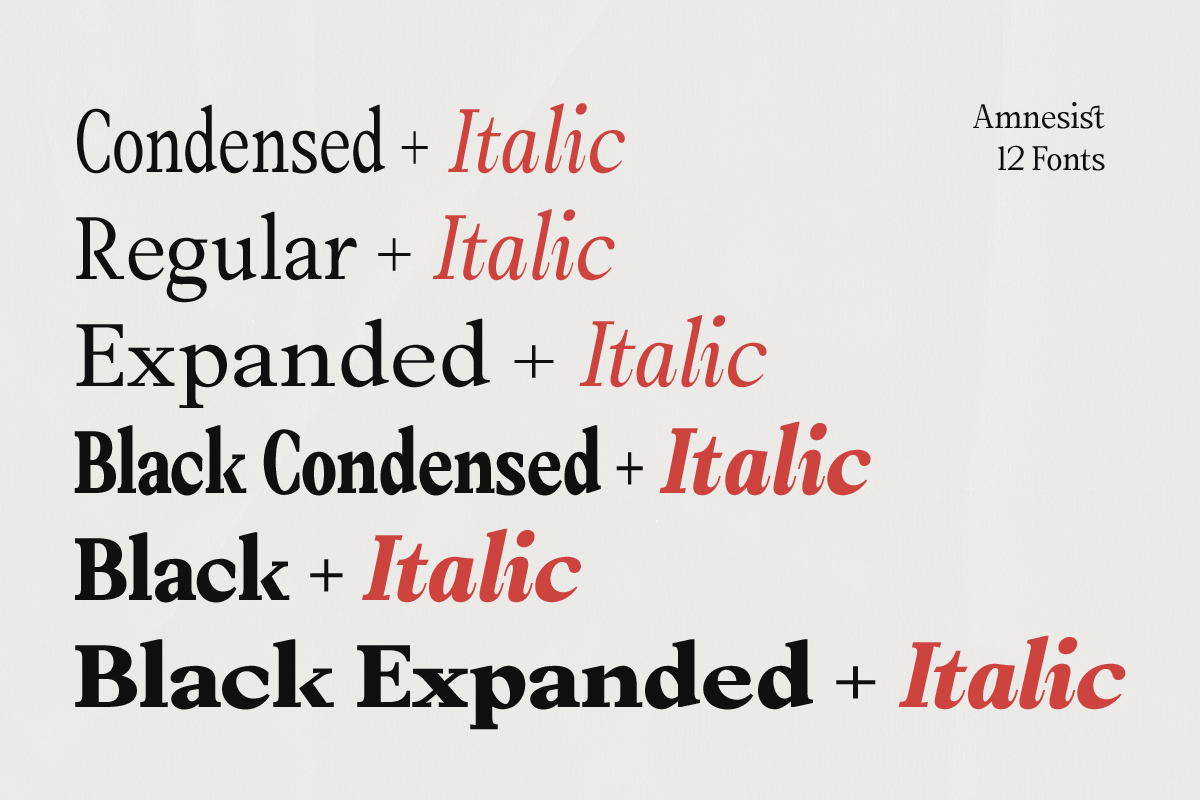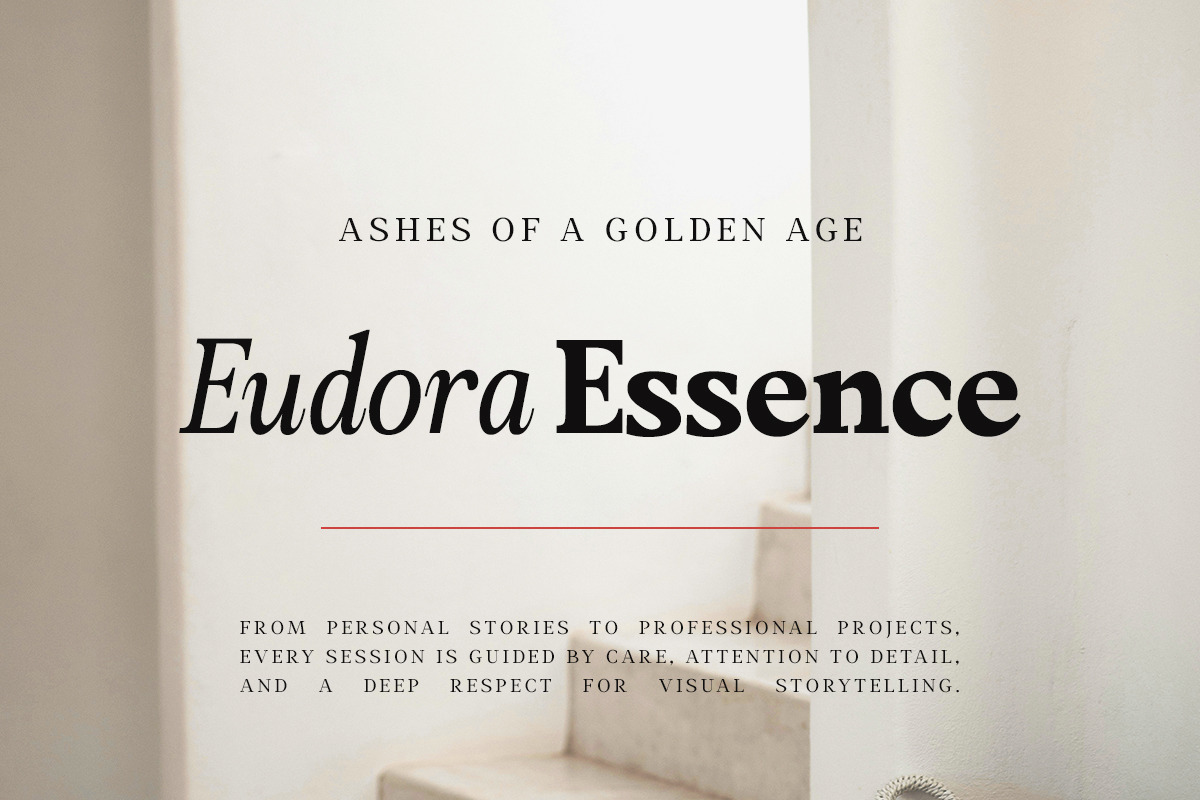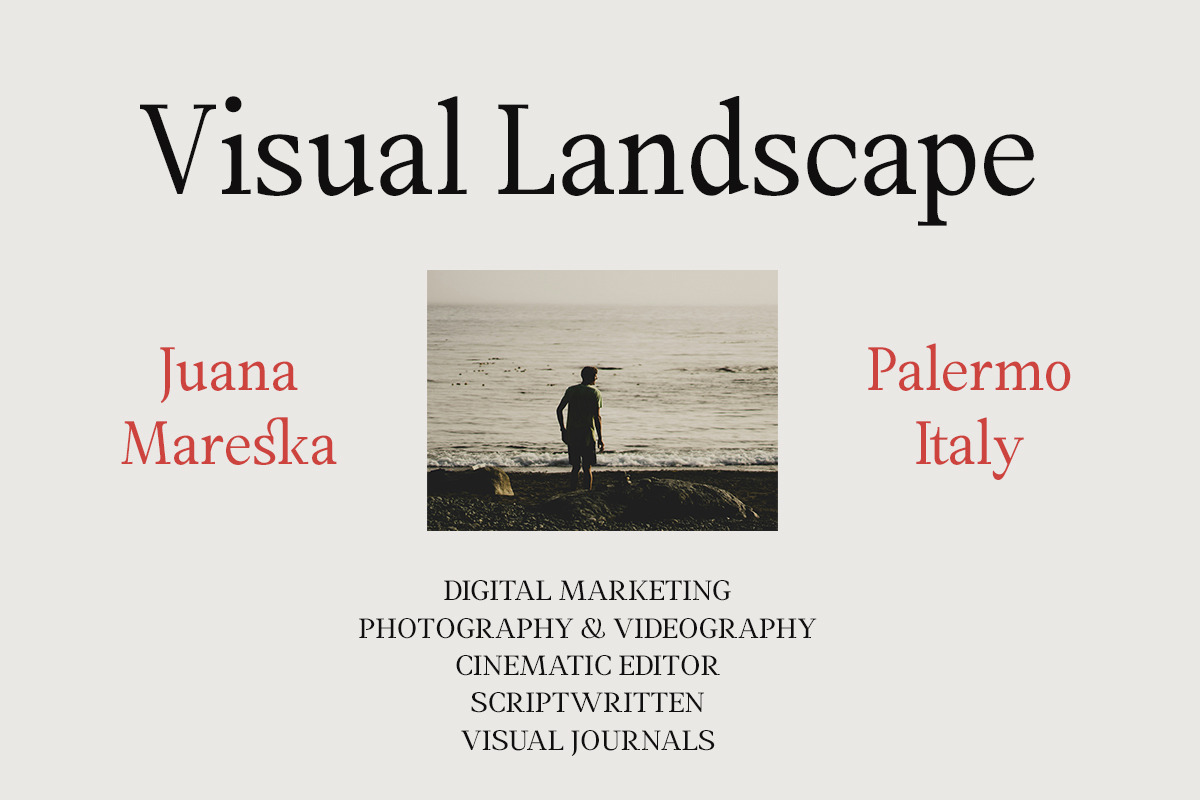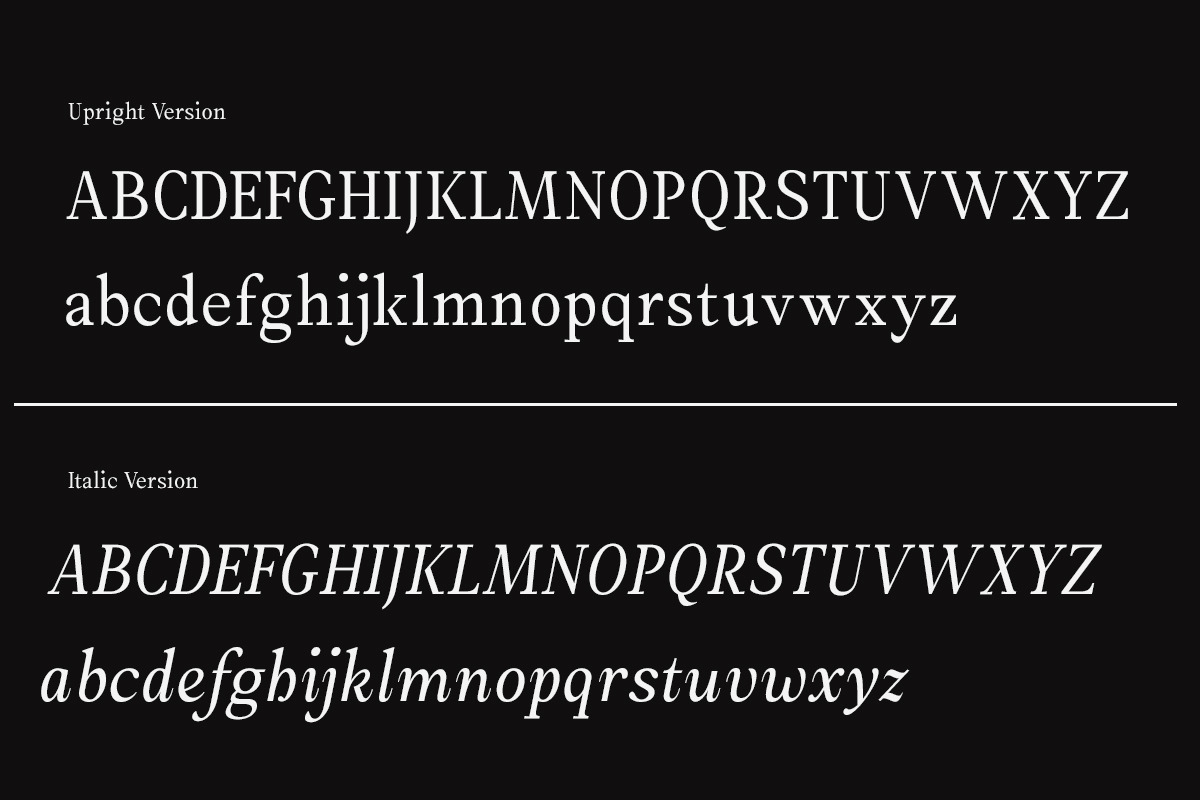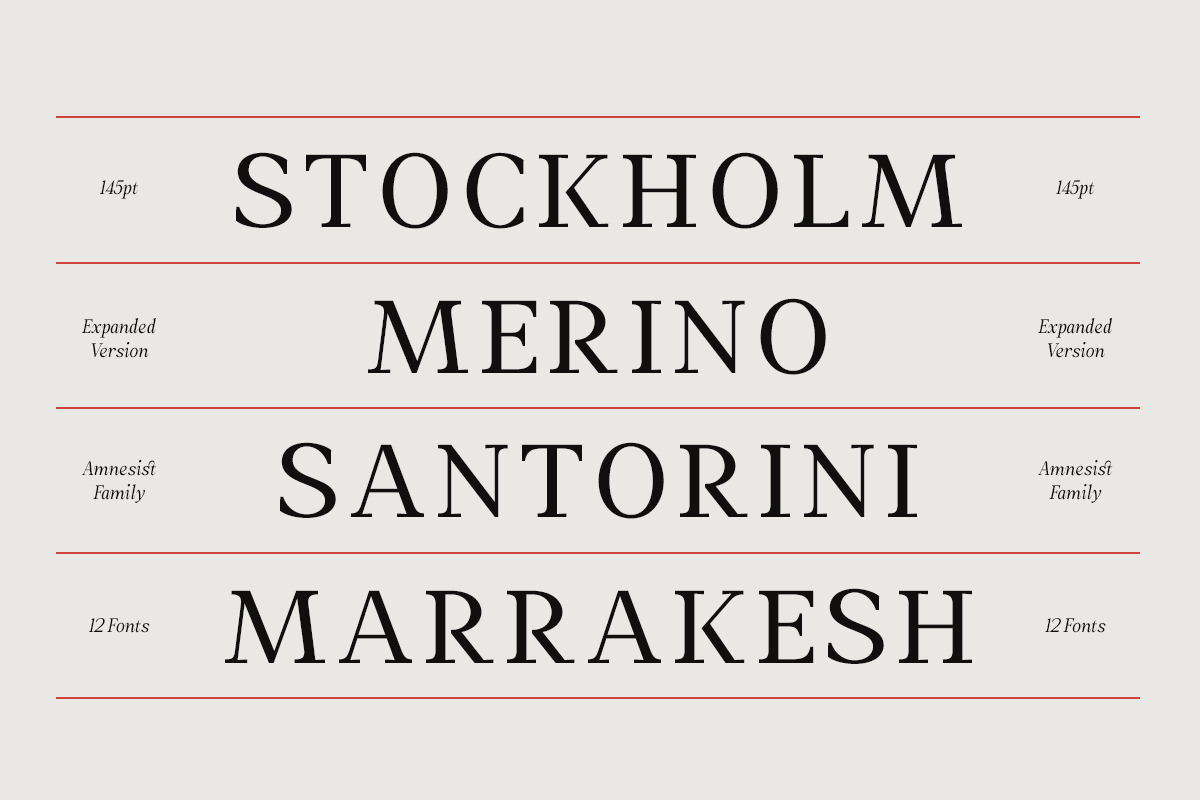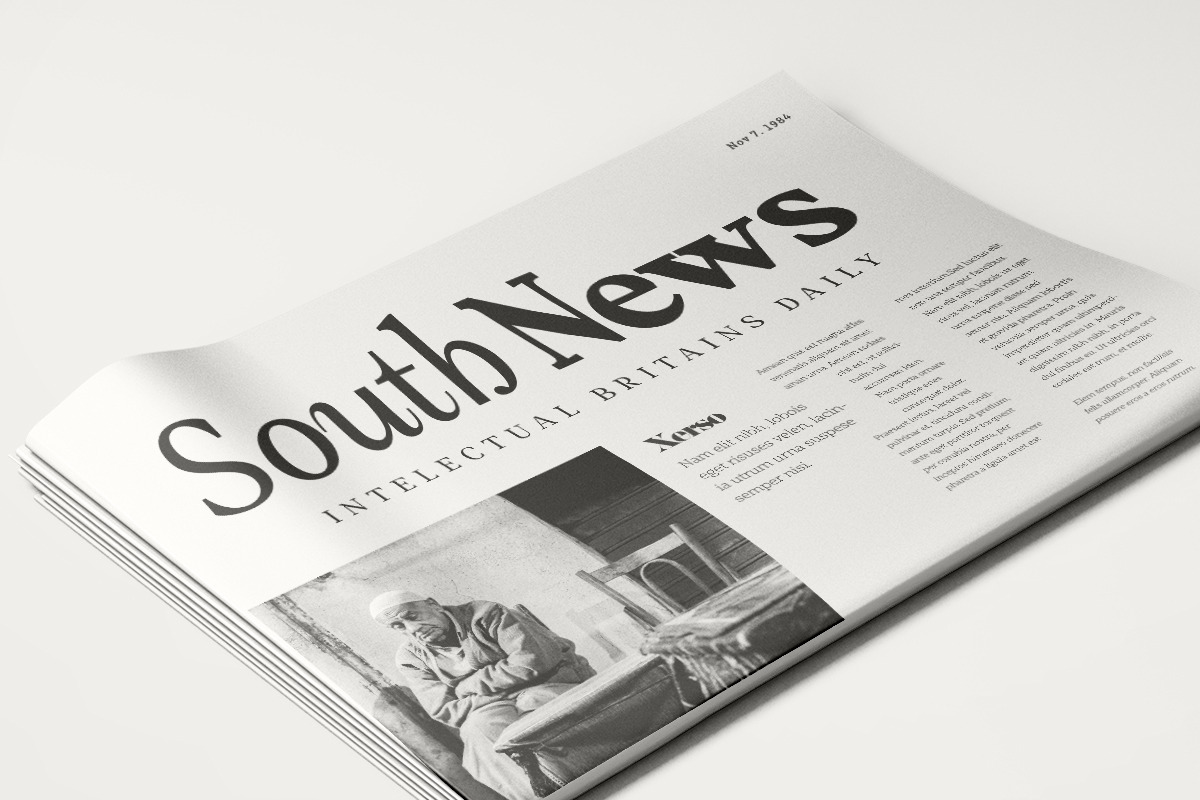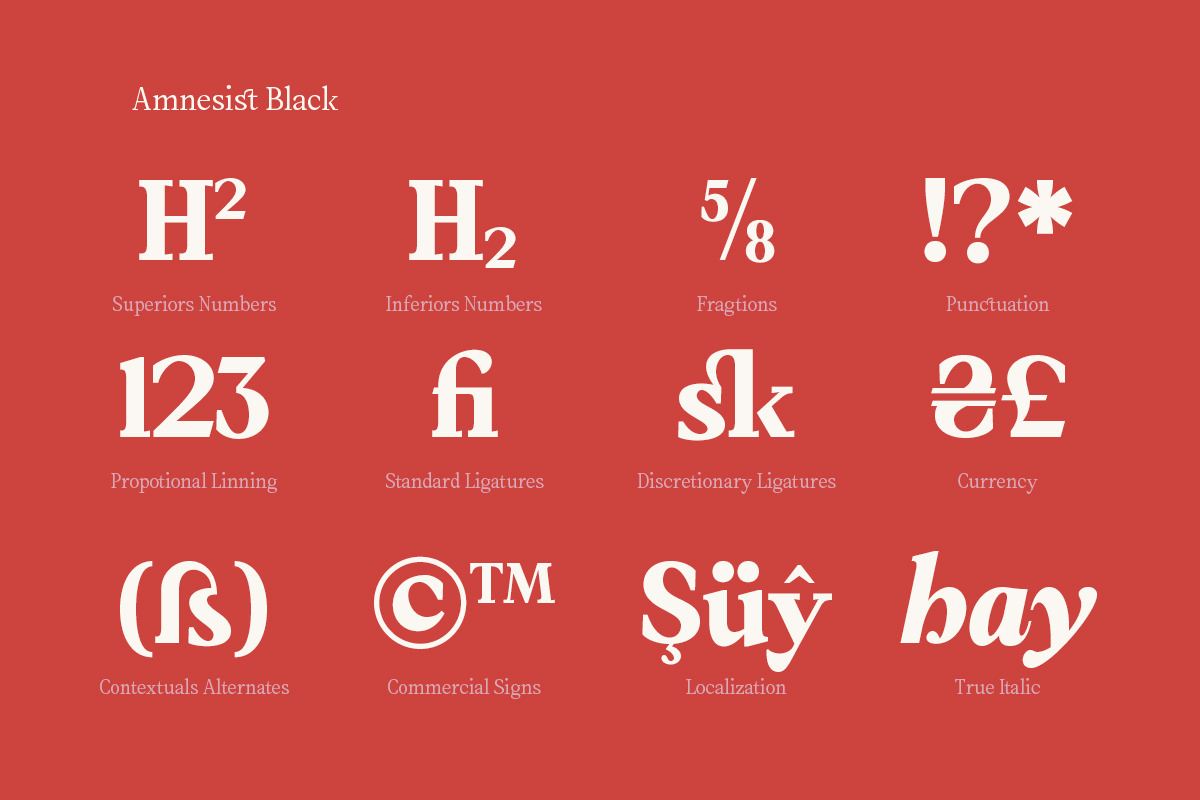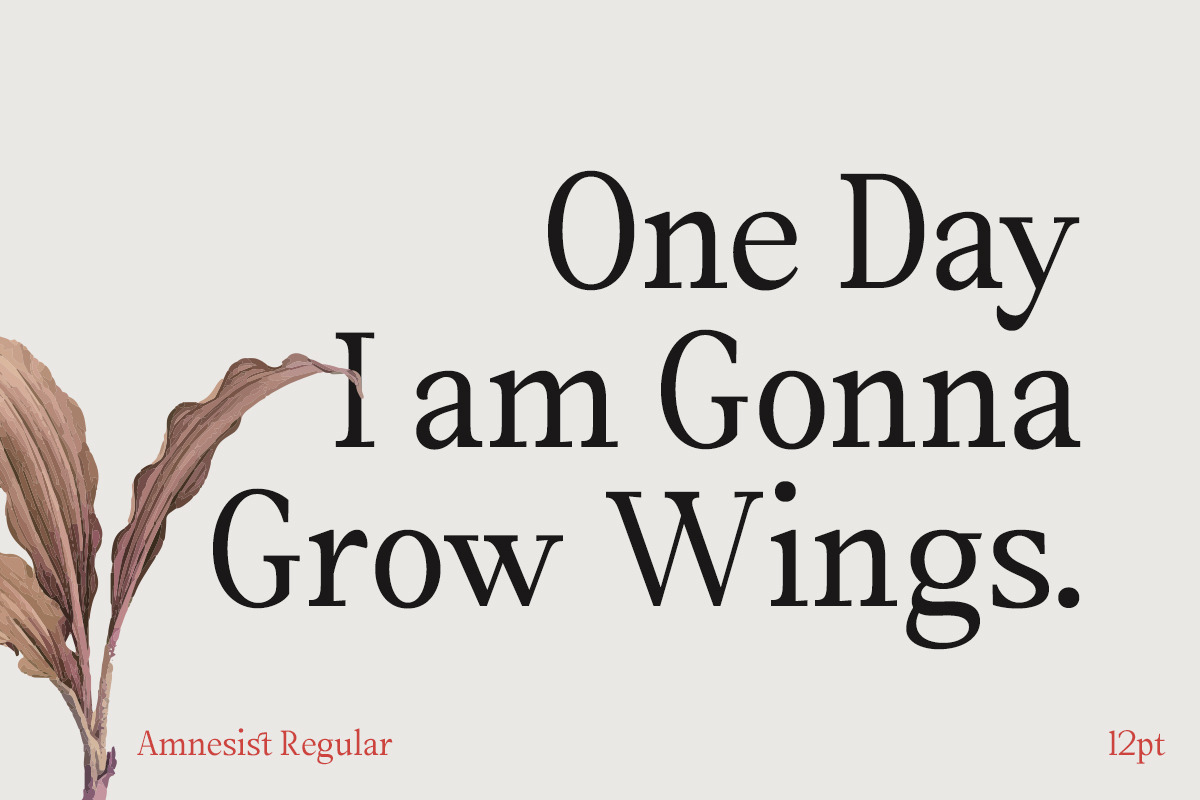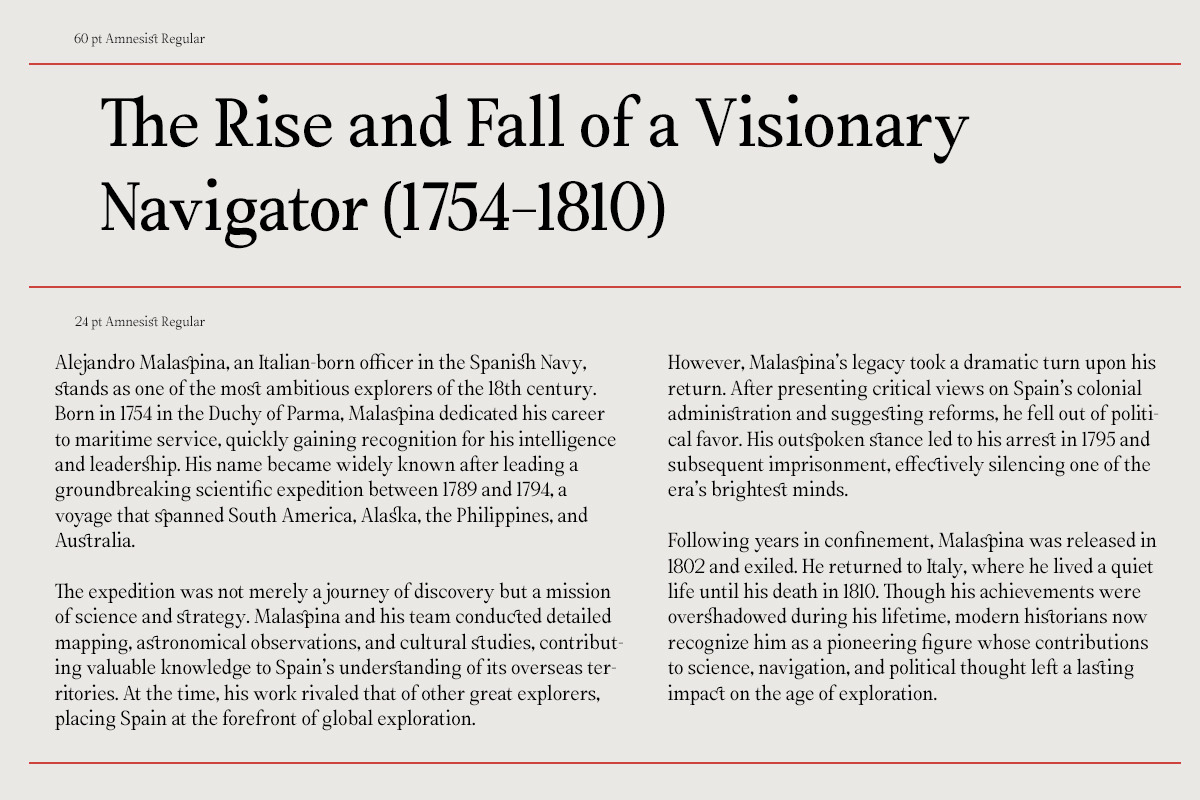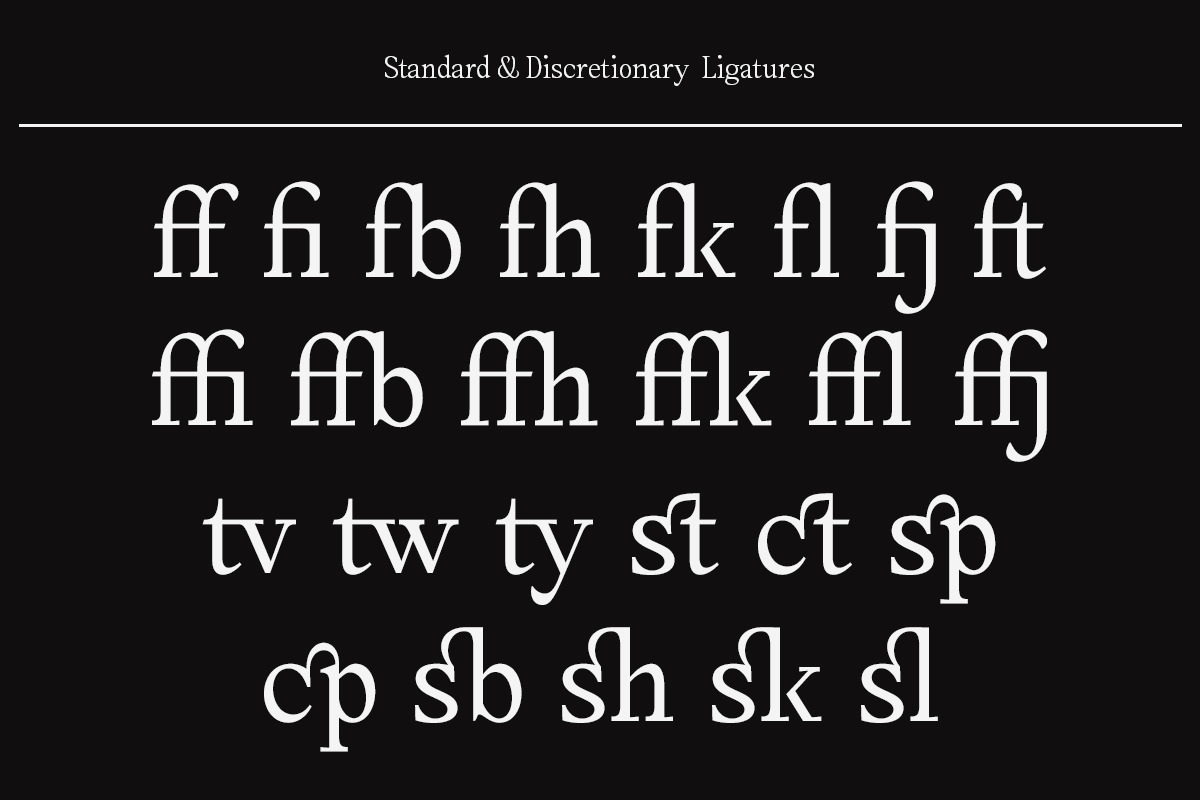
Amnesist | 12 Fonts
Amnesist is a versatile Roman serif that blends classical proportions with a refined contemporary sensibility. Defined by its balanced contrast, sculpted serifs, and graceful rhythm, it delivers a calm yet confident voice across editorial and branding applications.
Designed with a wide range of weights and accompanying italics, Amnesist offers flexibility without losing its distinctive character. Its forms evoke a quiet introspection—subtle, poised, and thoughtfully constructed—making it equally suited for high-end typography, modern publishing, and timeless visual identities.
Amnesist – Features
Family & Styles Amnesist is designed as a comprehensive type system, featuring 16 styles from Thin to Black, each accompanied by true italics. This extensive range ensures flexibility across both display and text settings.
Core Characteristics
Classic Roman serif construction with contemporary refinement Balanced proportions and controlled contrast Elegant, readable forms for both headlines and body text Carefully crafted italics with natural flow and rhythm